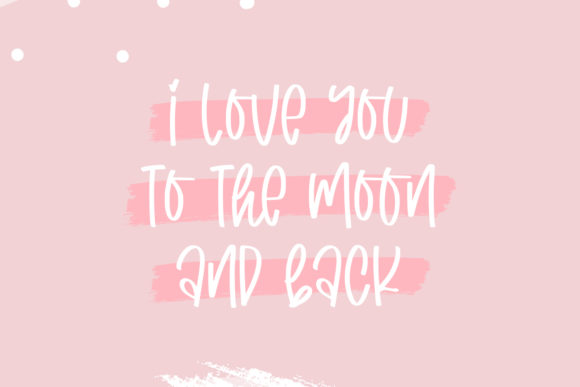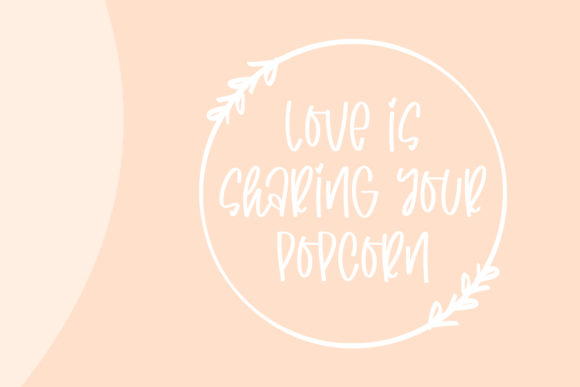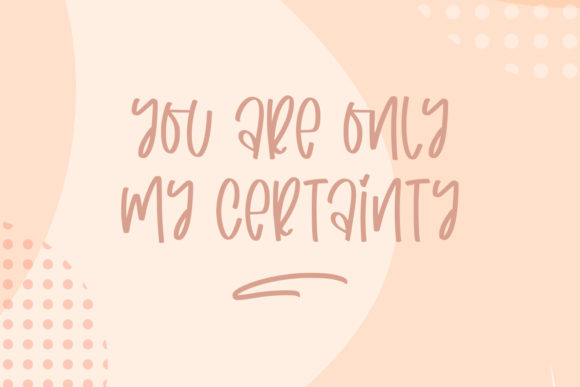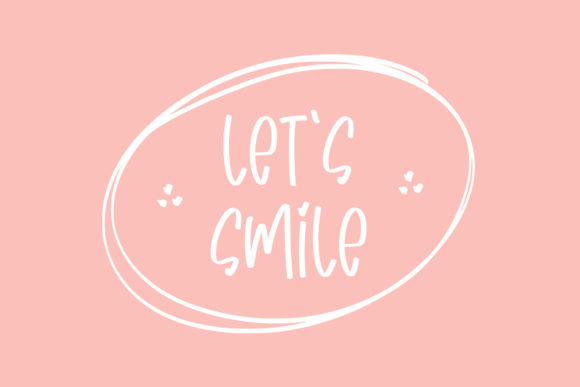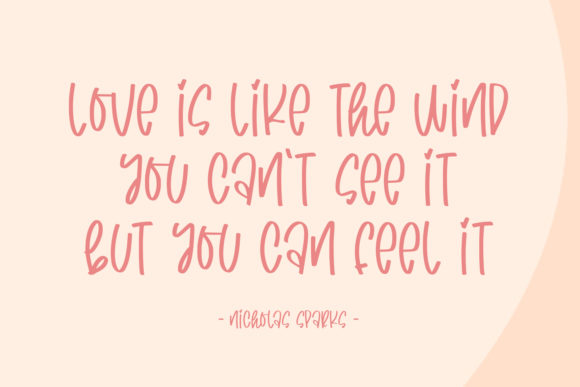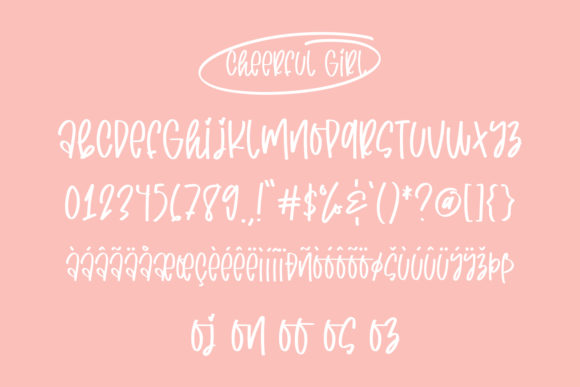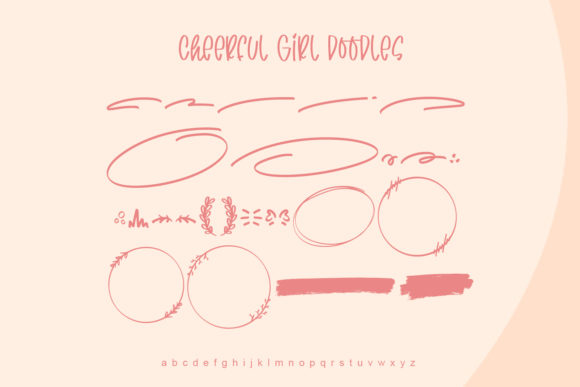
Cheerful Girl Font
About Cheerful Girl Font
Cheerful Girl is a sweet, quirky and relaxed handwritten font, designed with the help of a brush pen.
Fall in love with its incredibly versatile style and use it to create gorgeous wedding invitations, beautiful stationary art, eye-catching social media posts, and much more!